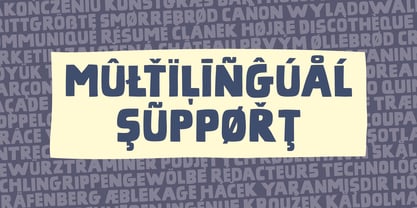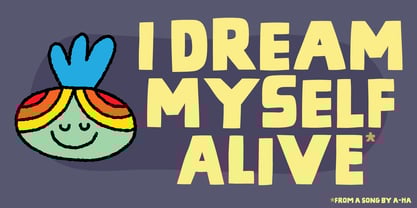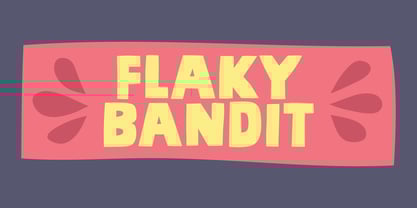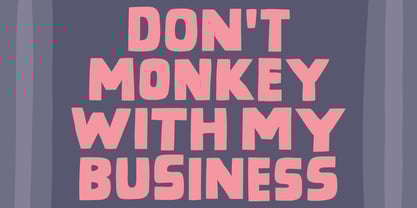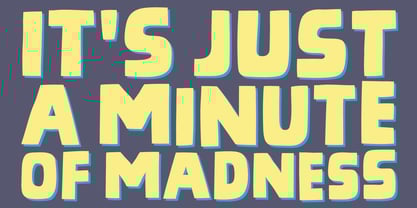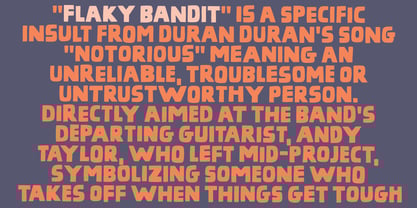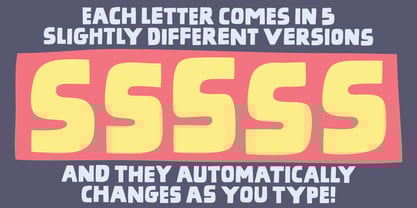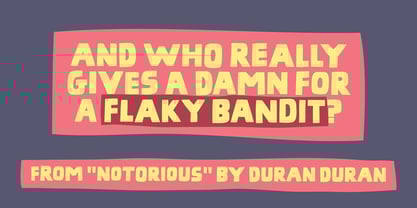
Flaky Bandit
by Bogstav
The Flaky Bandit Font Family was designed by Jakob Fischer and published by Bogstav. Flaky Bandit contains 2 styles and family package options.
Flaky Bandit was inspired by a lyric from the band Duran Duran, referencing member Andy Taylor's departure during an album recording. After many years, I hope they have rekindled their friendship! This inspiration led me to create an all-caps graffiti-inspired font. The letters are thick and easy to read, featuring a distinct handmade design. I've crafted five slightly different versions of each letter, which automatically change as you type, providing a dynamic and organic appearance! Go ahead and try Flaky Bandit for your next party poster - it is bound to get some attention!
Bogstav.com was founded in september 2017 and is run by Jakob Fischer (who also runs pizzadude.dk) I concentrate on creating handmade quality fonts and my style is mostly organic looking, cartoonish or in some way influenced by grafitti. All fonts are created by me and comes straight out of Copenhagen, Denmark - just like Caroline Wozniacki, Viggo Mortensen, Mads Mikkelsen, Carlsberg and H.C. Andersen...and Carlsberg! :)